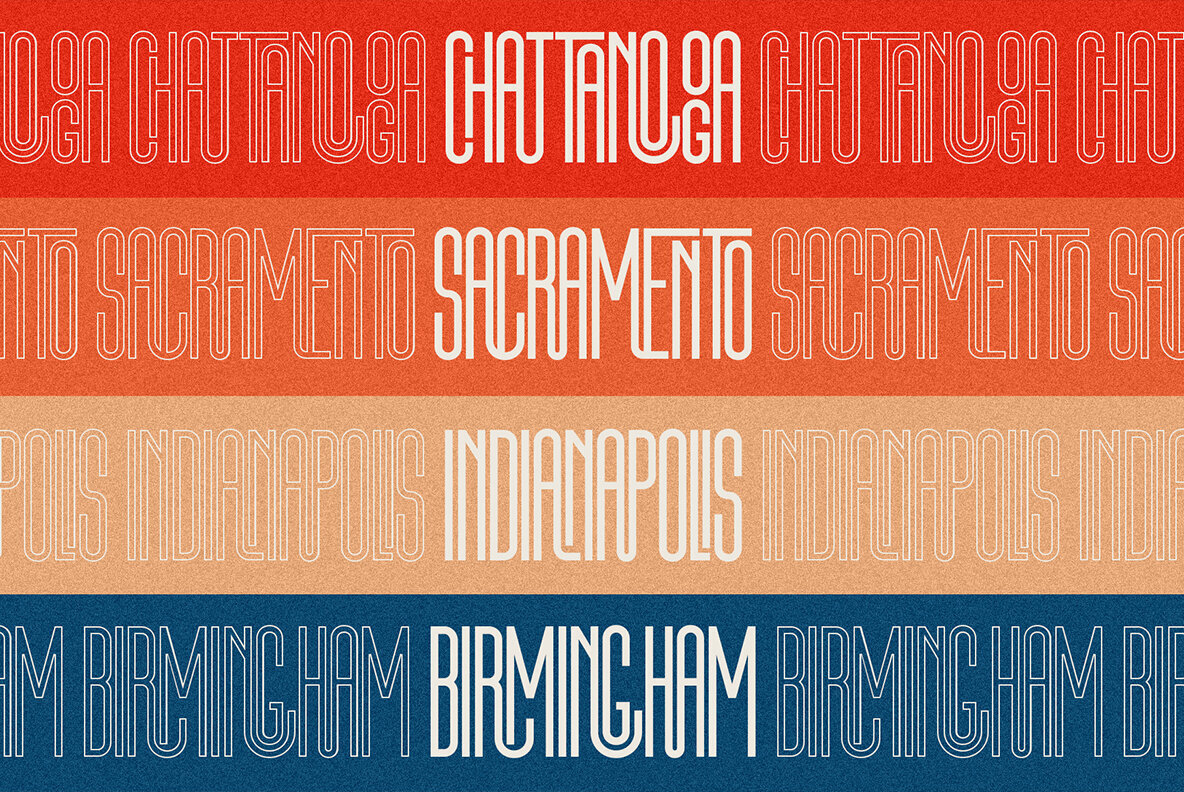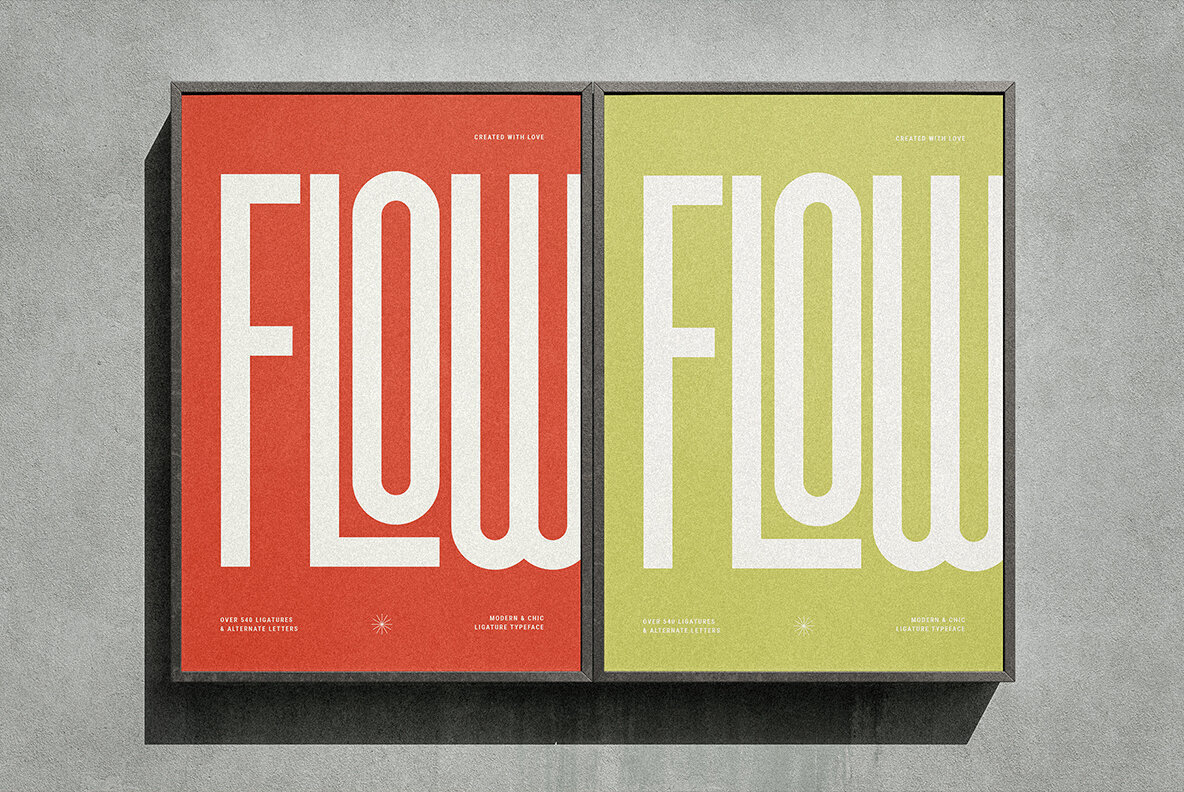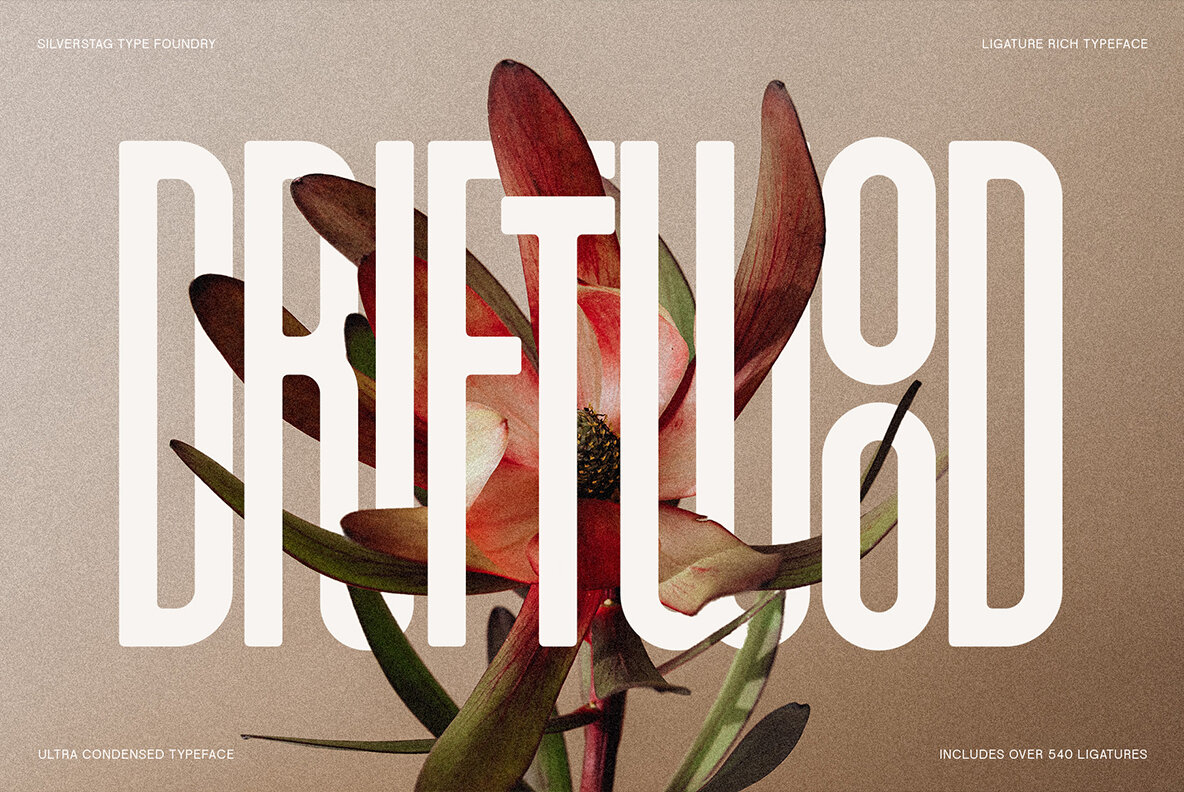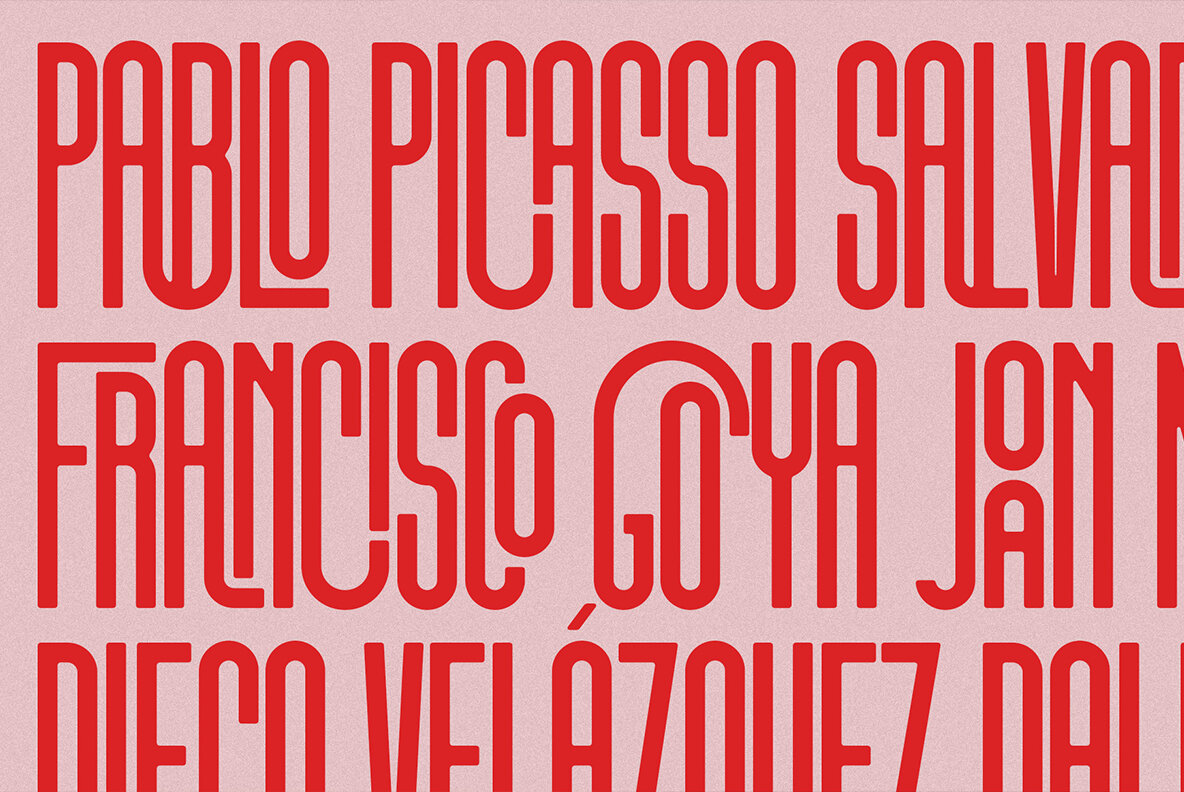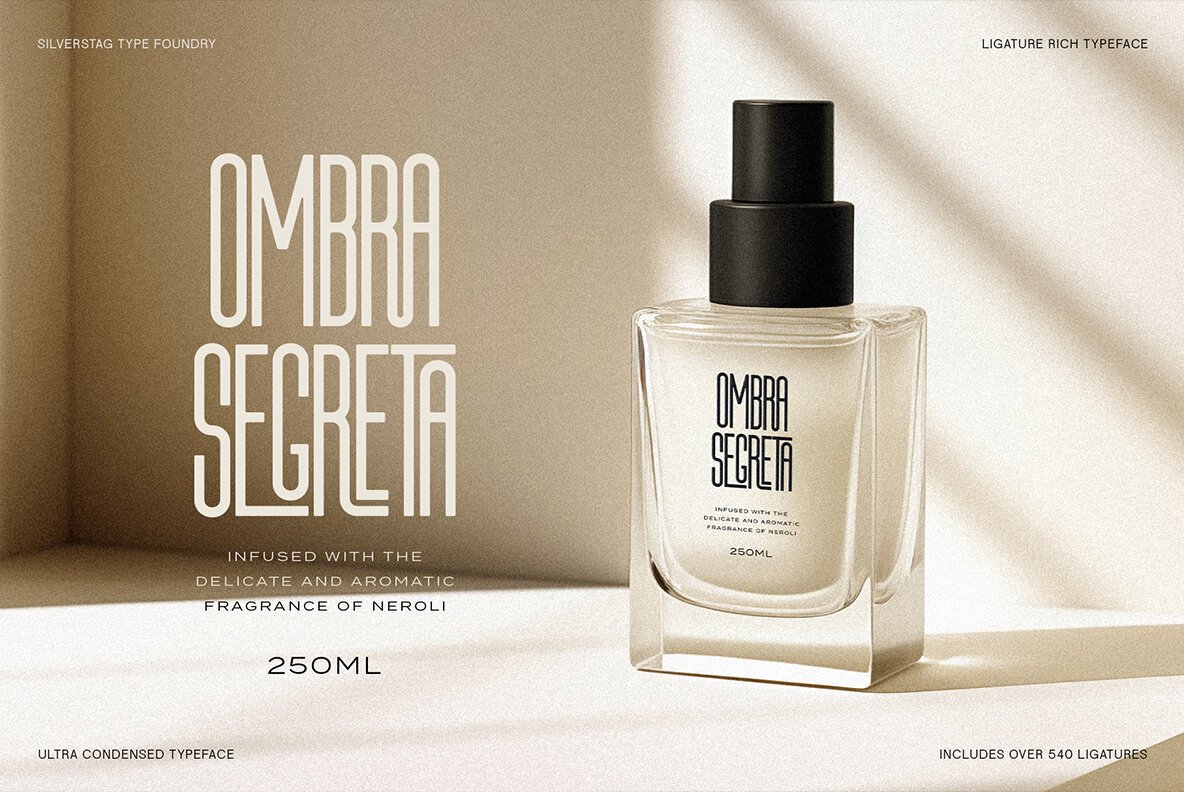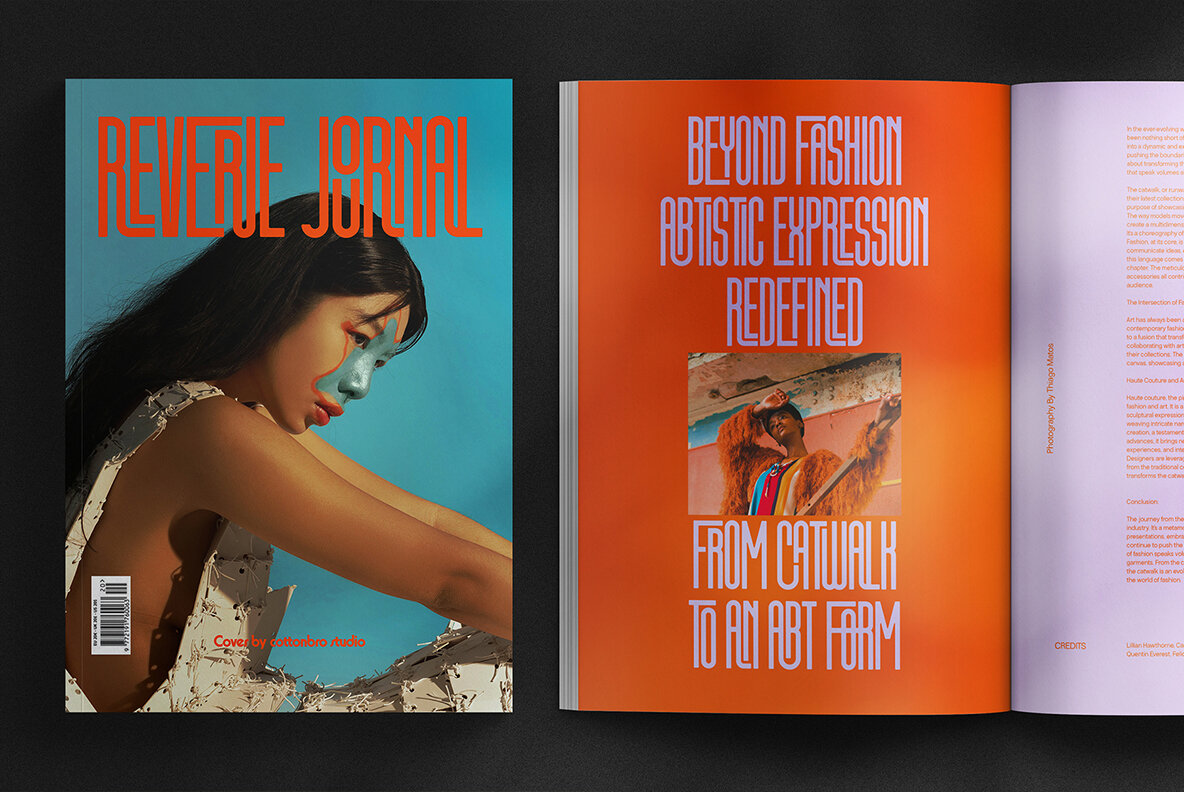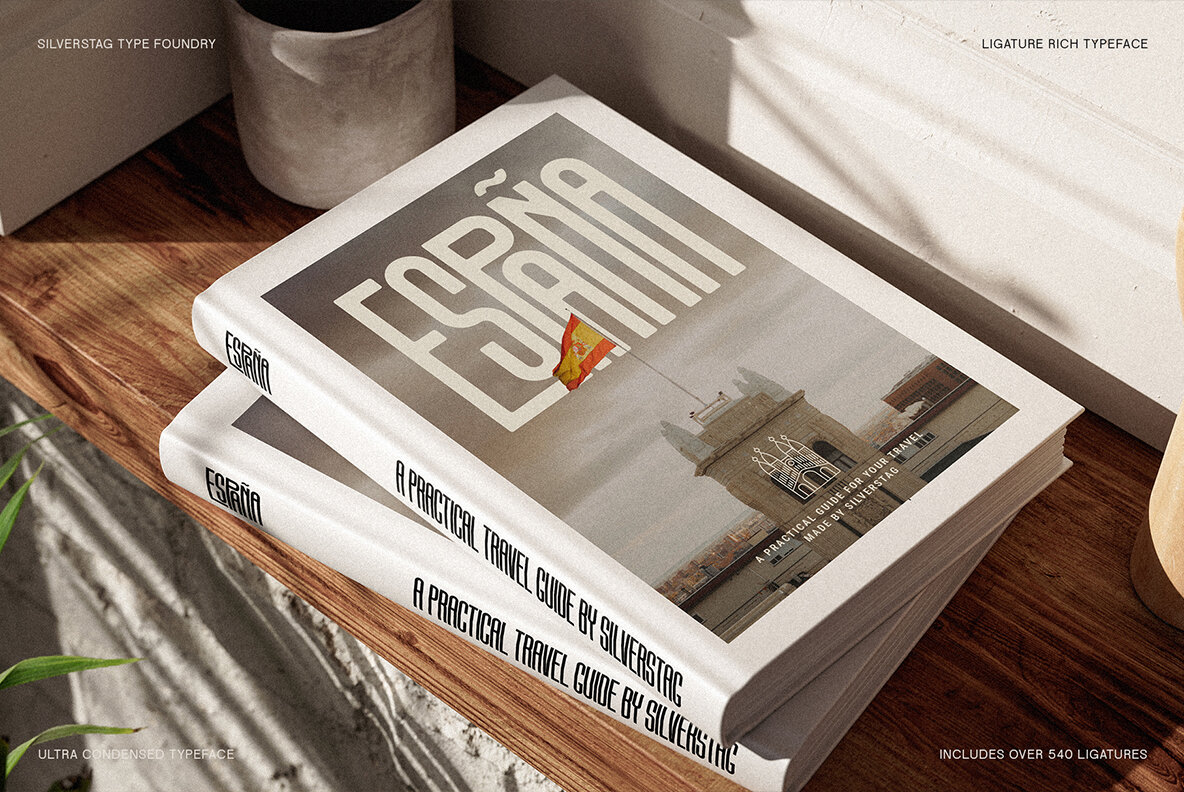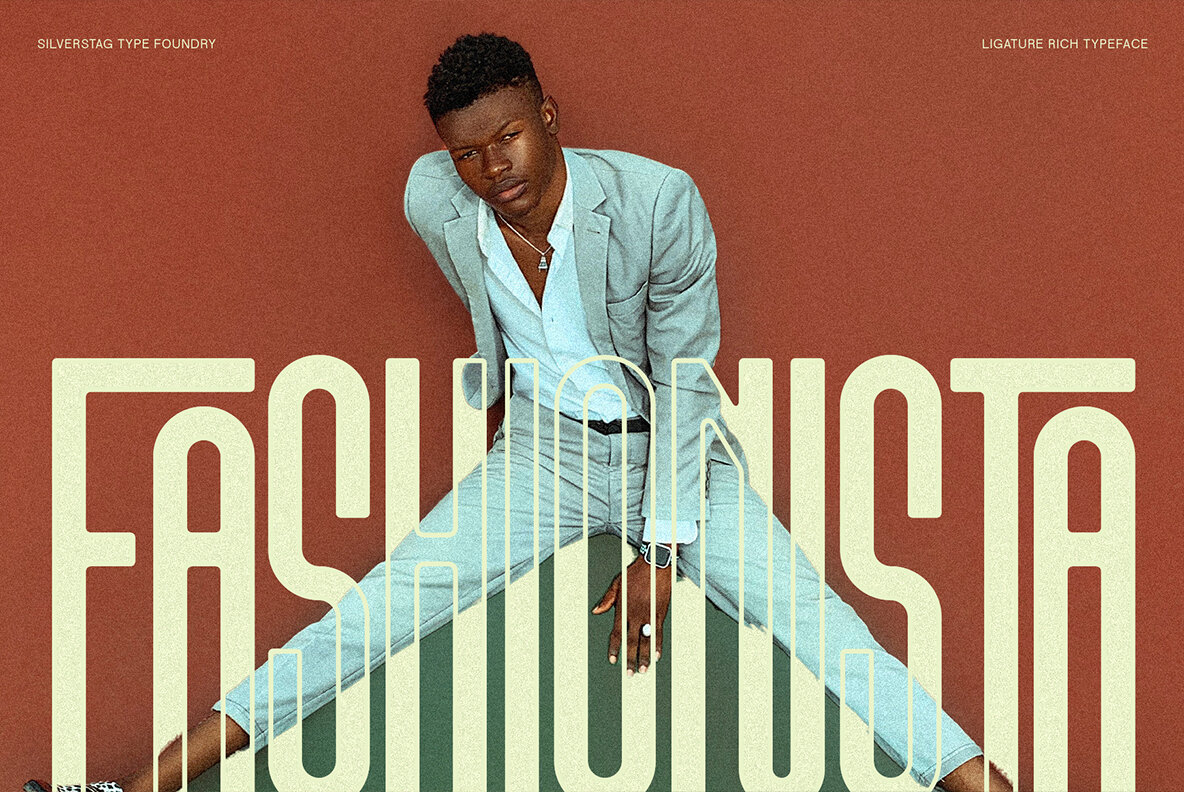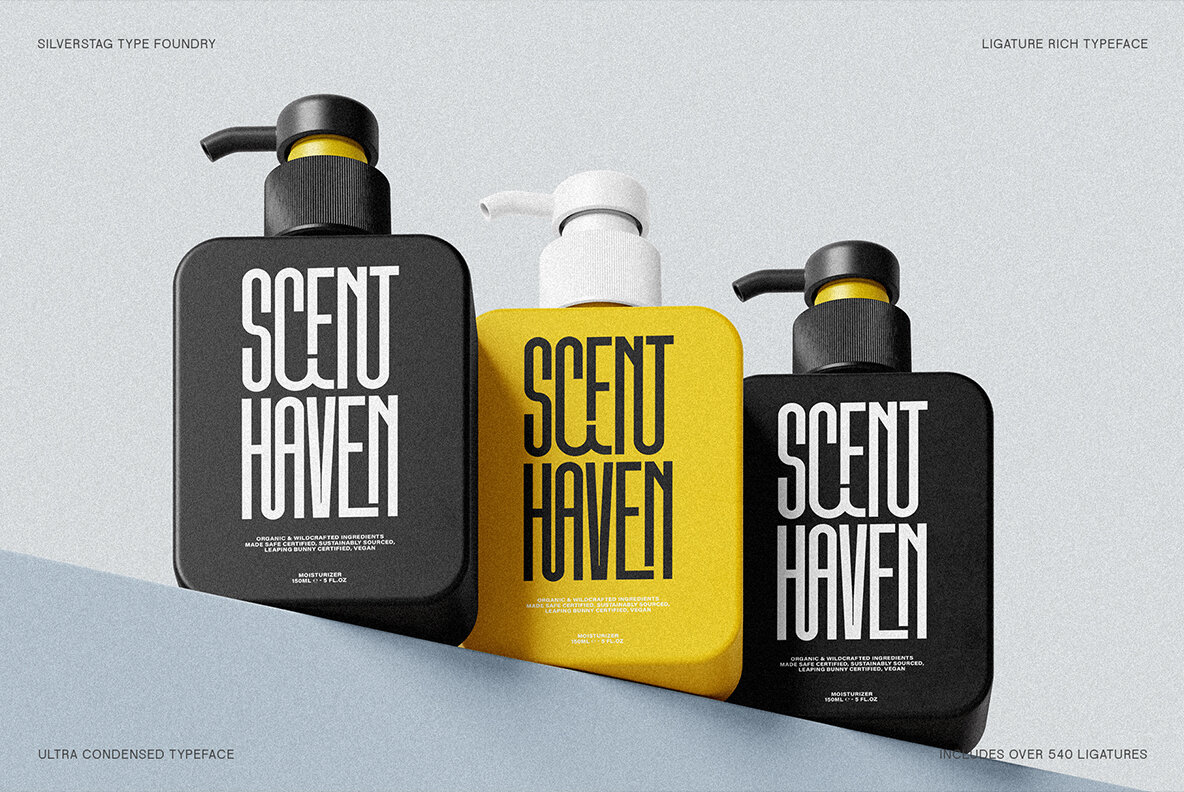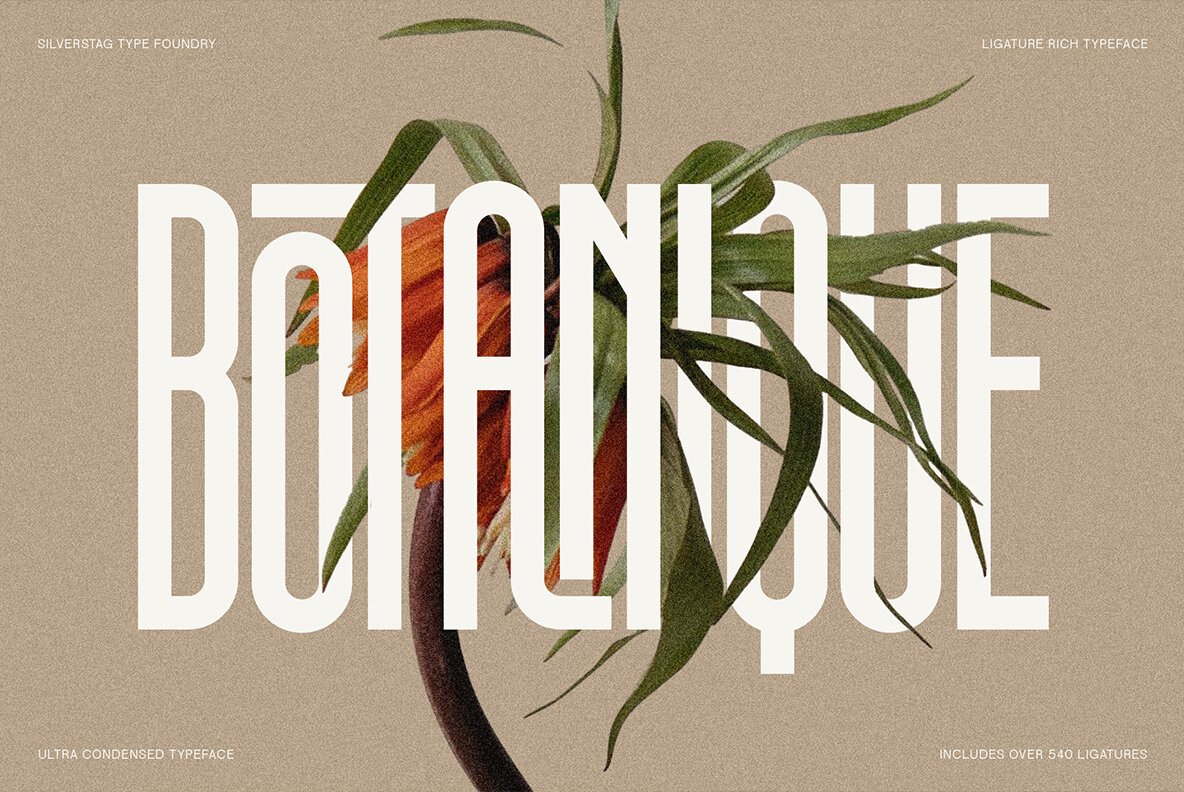
First Contact Font
Introducing First Contact: The Ultra-Condensed Typeface Family for Maximum Impact Elevate your designs with First Contact – a comprehensive and versatile ultra-condensed typeface family. With its striking presence and space-saving design, First Contact is ideal for commanding headlines, unforgettable logos, cutting-edge web design, dynamic packaging, and any project that demands bold typography. Key Features: